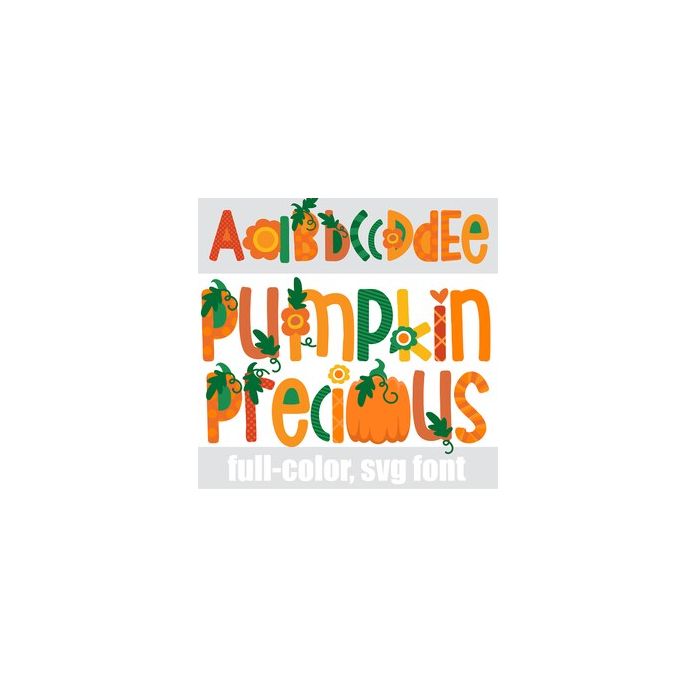
This full-color font features an orange and green color palette and pumpkins. There is an alt case w/ additional colors you can access through your system or Silhouette's glyph map.